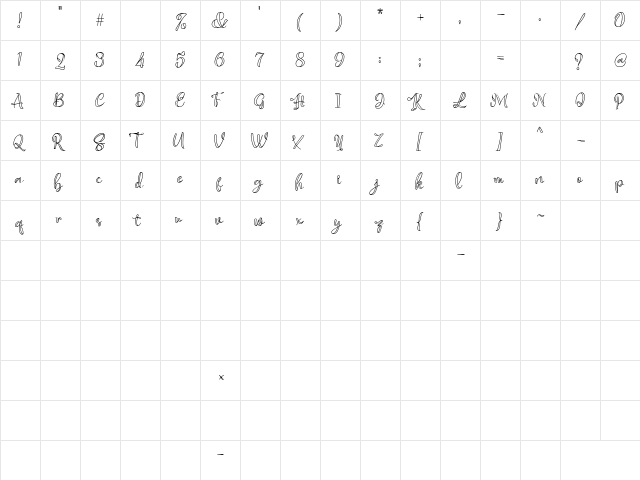
Anylove Line
| Designer | Nico Muslib |
Design Context for Anylove Typeface
Anylove is a composed and adaptable typeface that performs quietly and consistently across a wide range of design contexts.